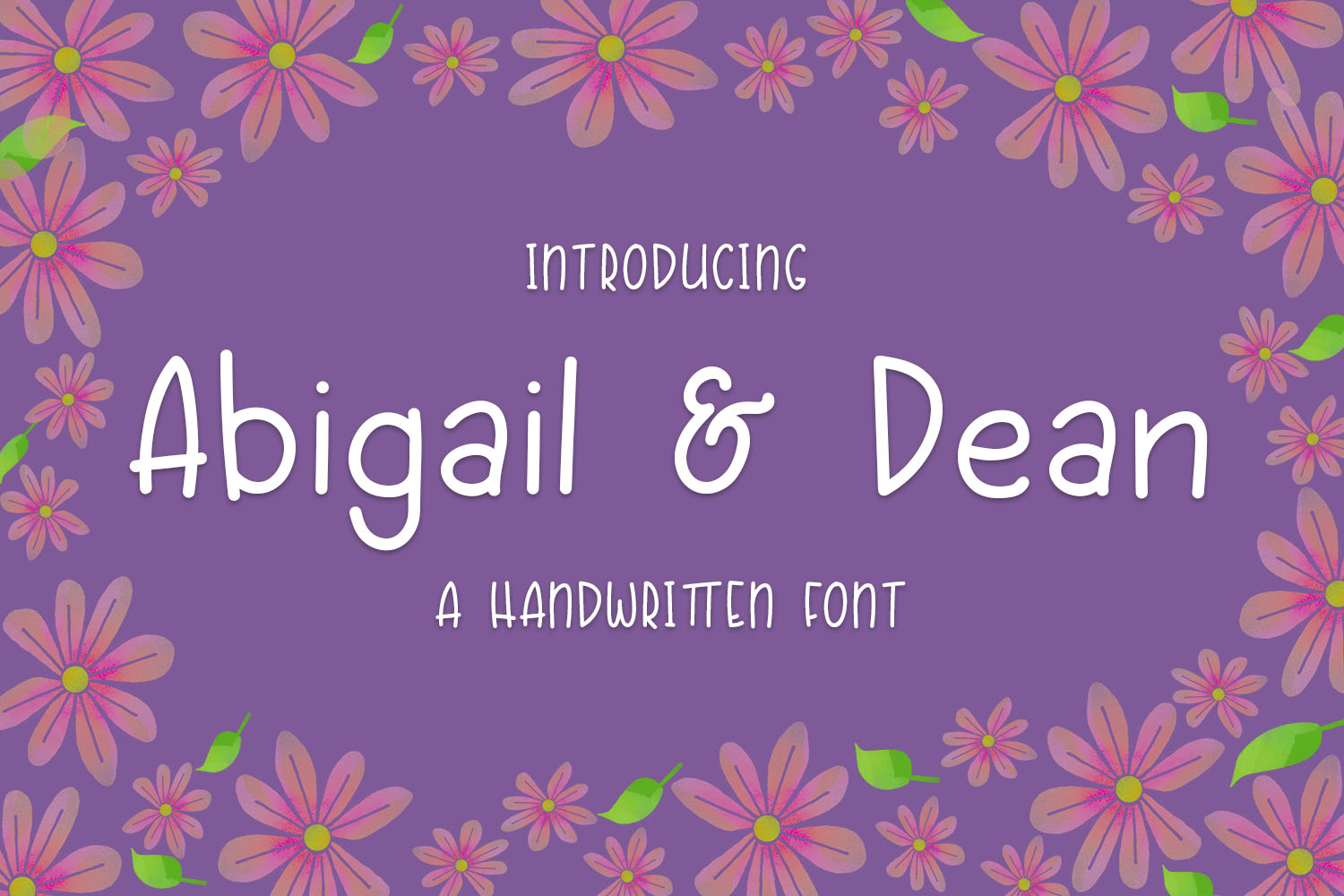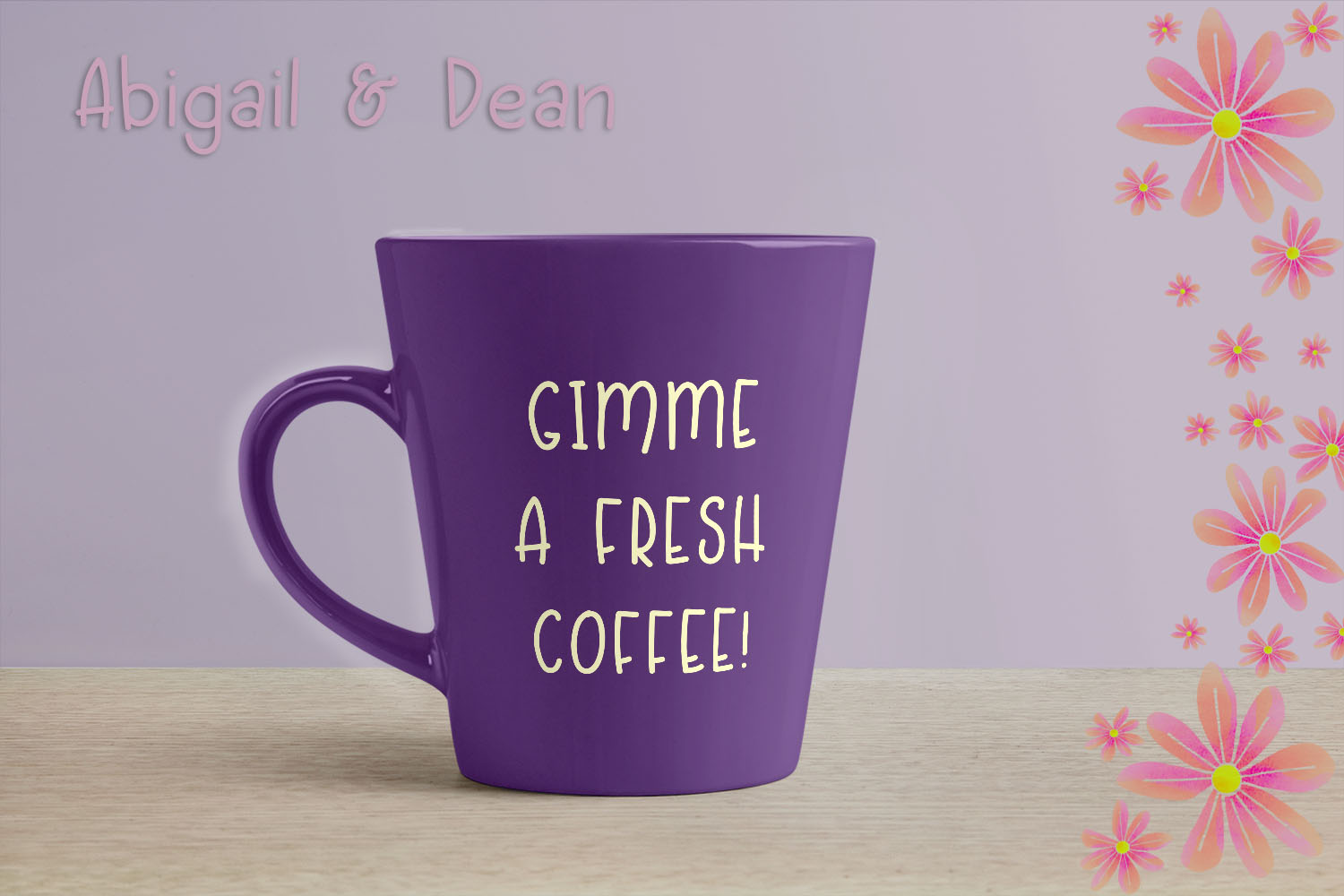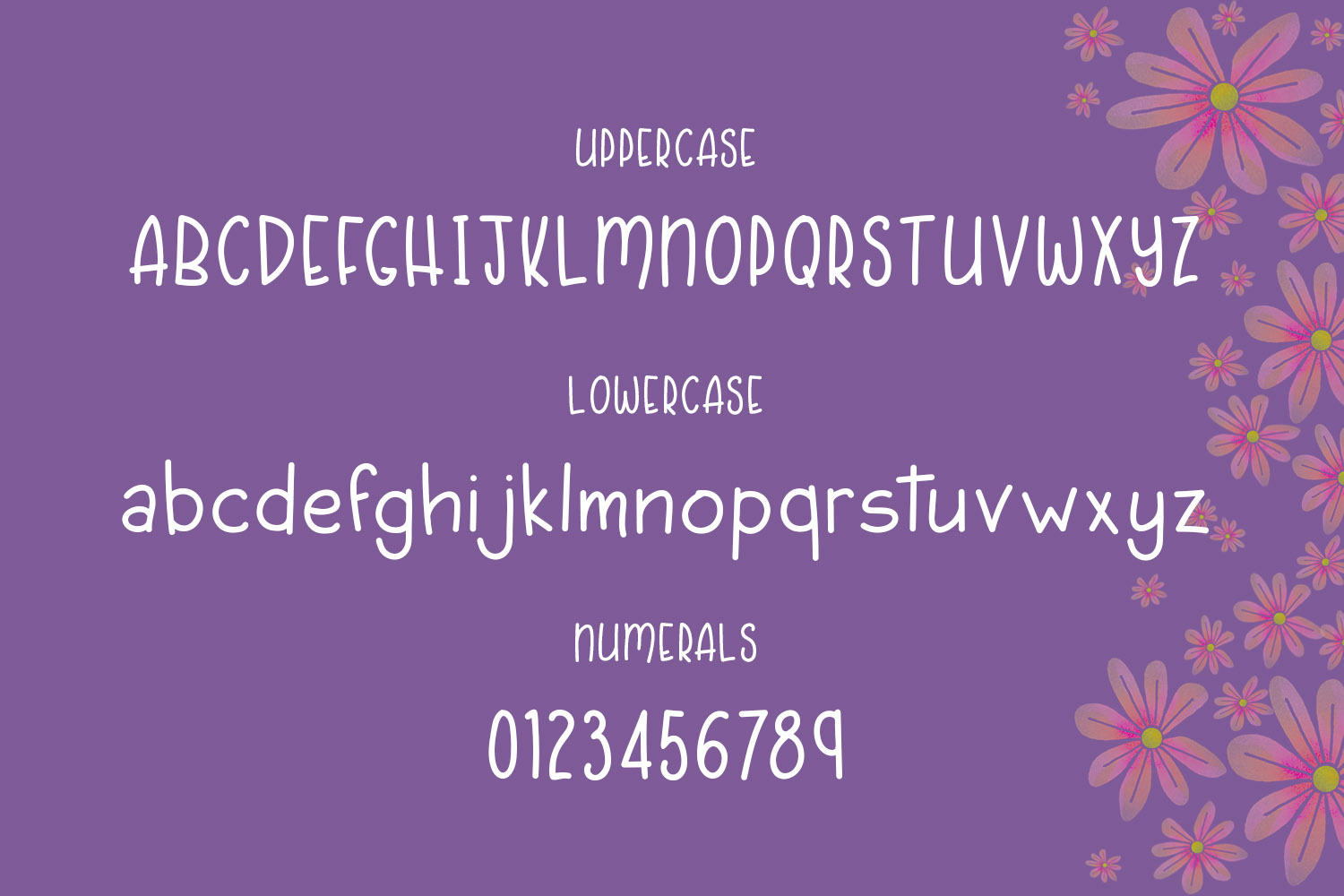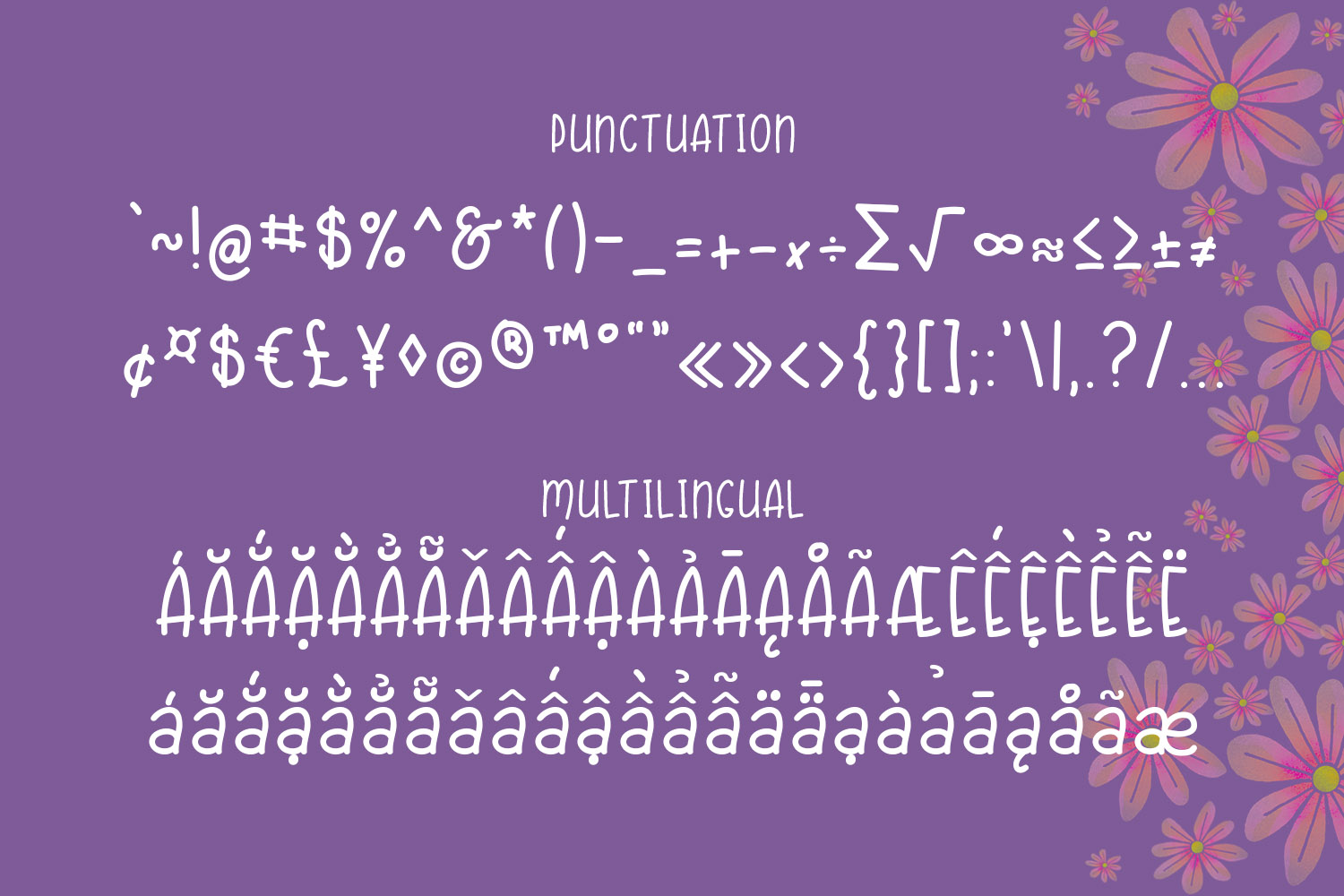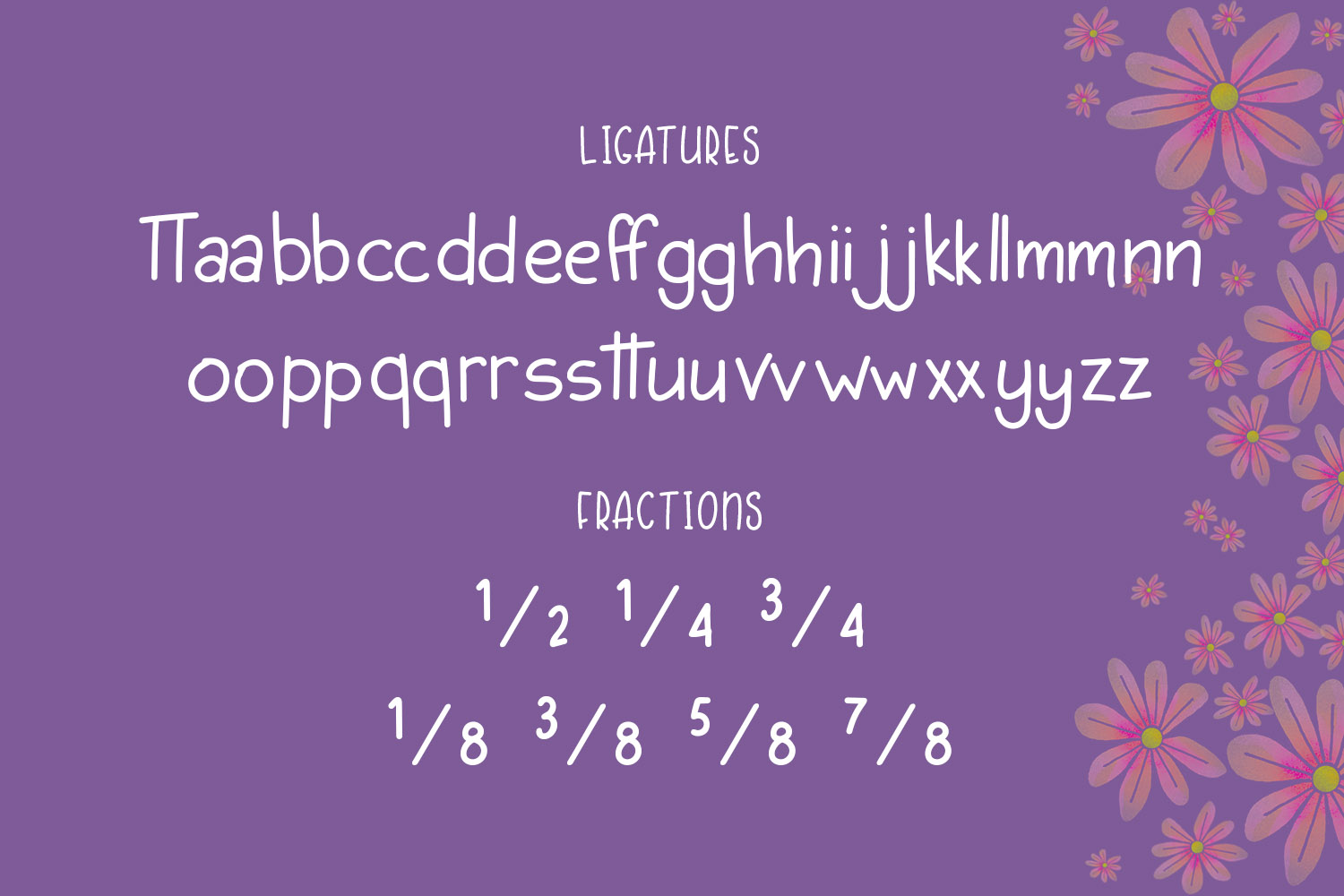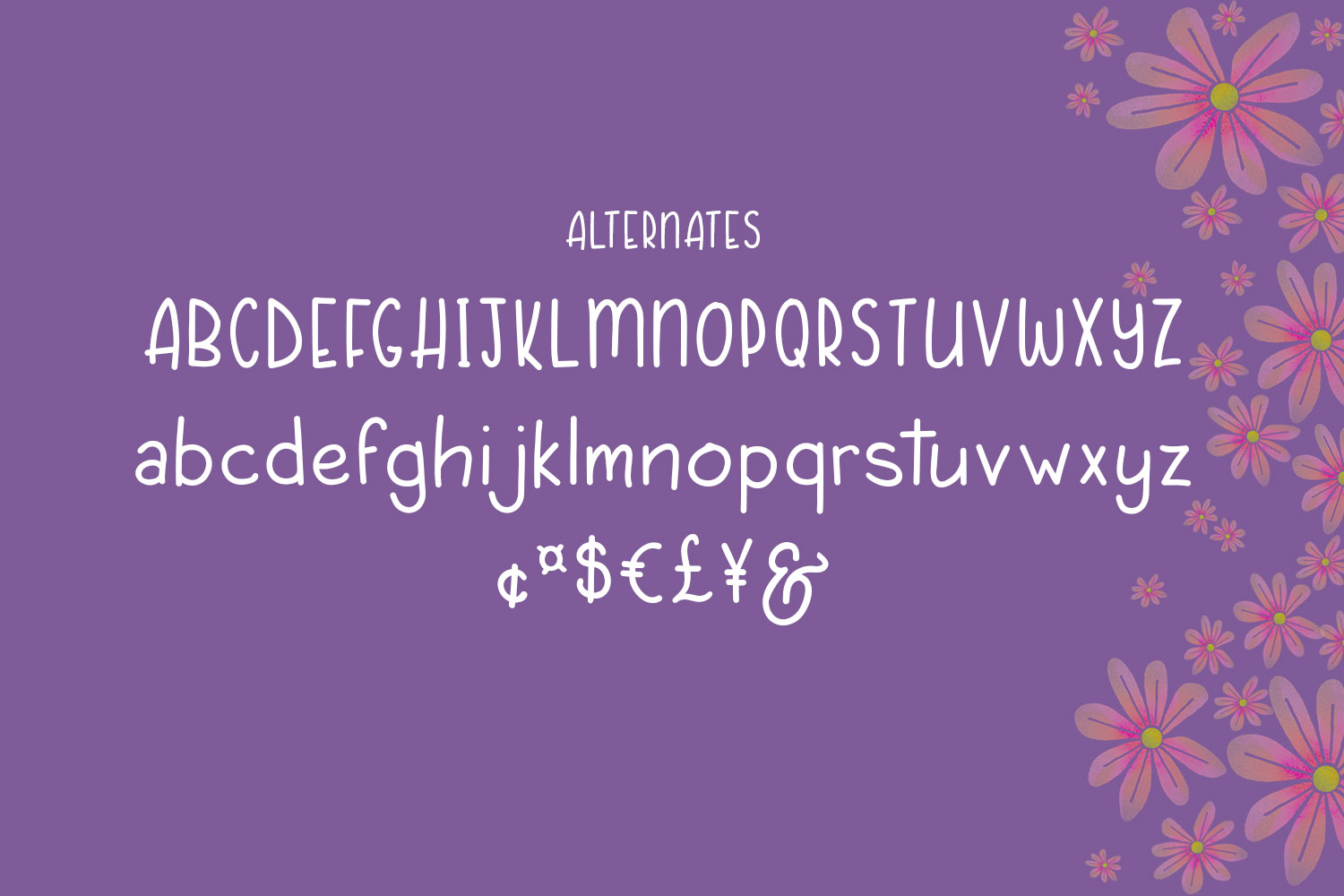
Abigail & Dean Font
About Abigail & Dean Font
Abigail & Dean is a handwritten font with ligatures, alternates, multilingual language support and lots of punctuation!